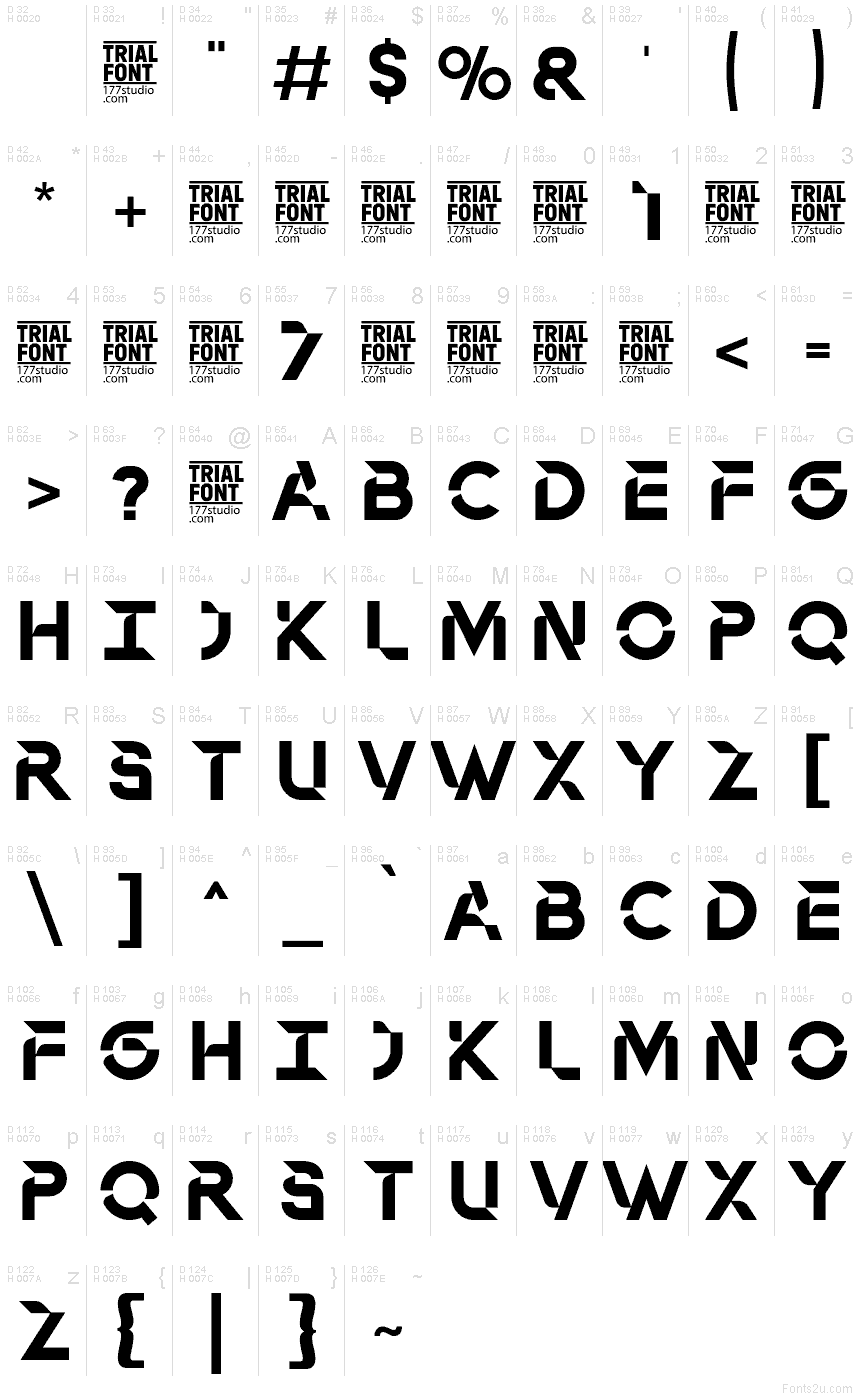
Explore Changes Demo Regular
Explore Changes font by 177Studio is a sleek modern display typeface with a strong presence. It provides industrial and commanding appeal, creating the best impact in situations where character count is minimal and letters are as large as possible. Modernist influence gives it clean, legible shapes while its technical feel comes from visual geometric and monospaced qualities.